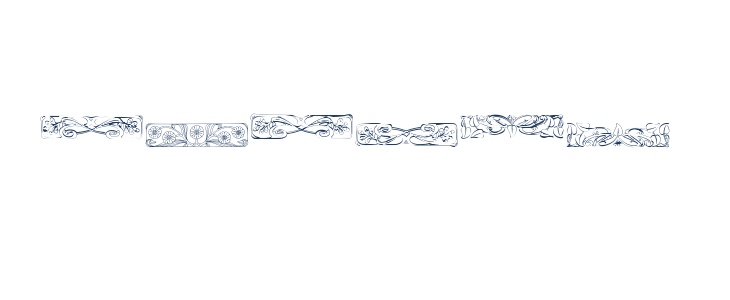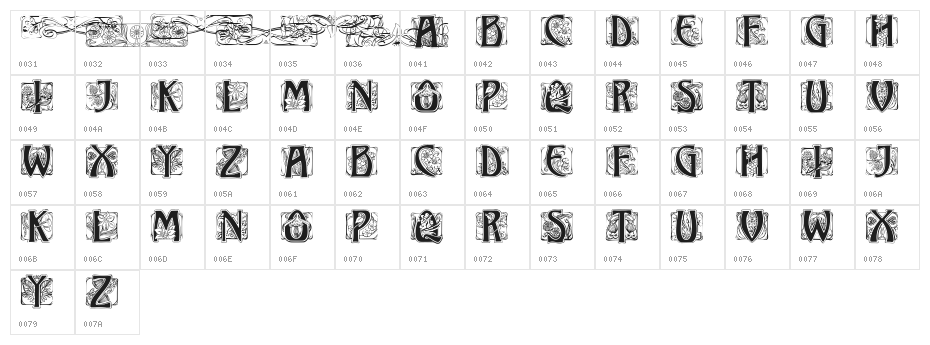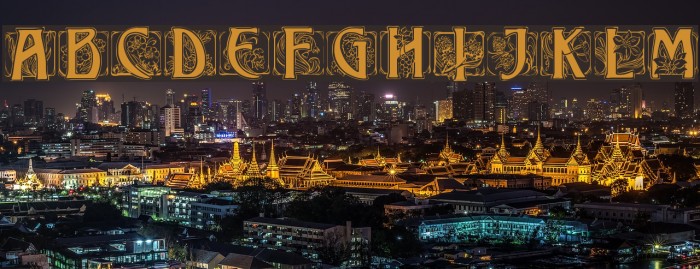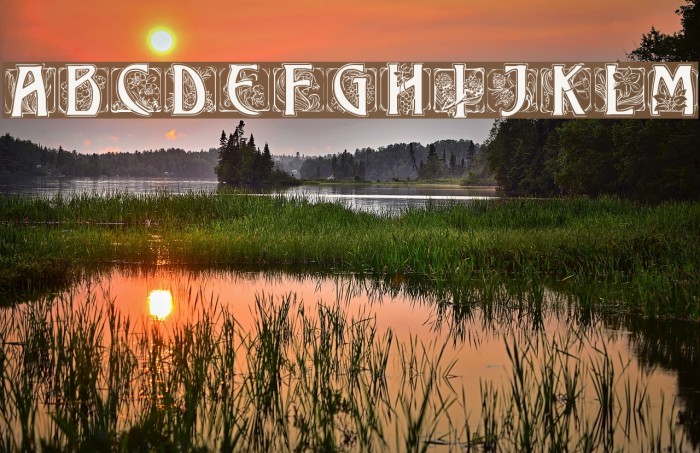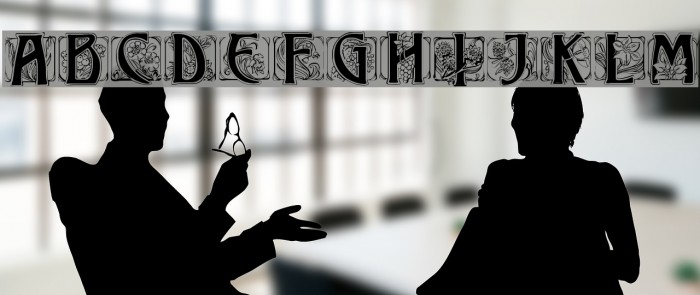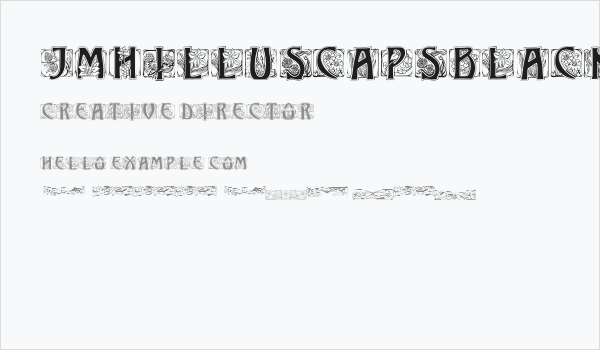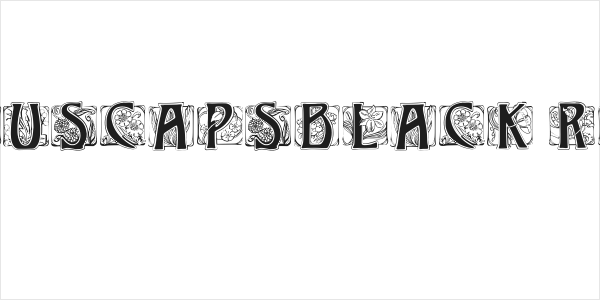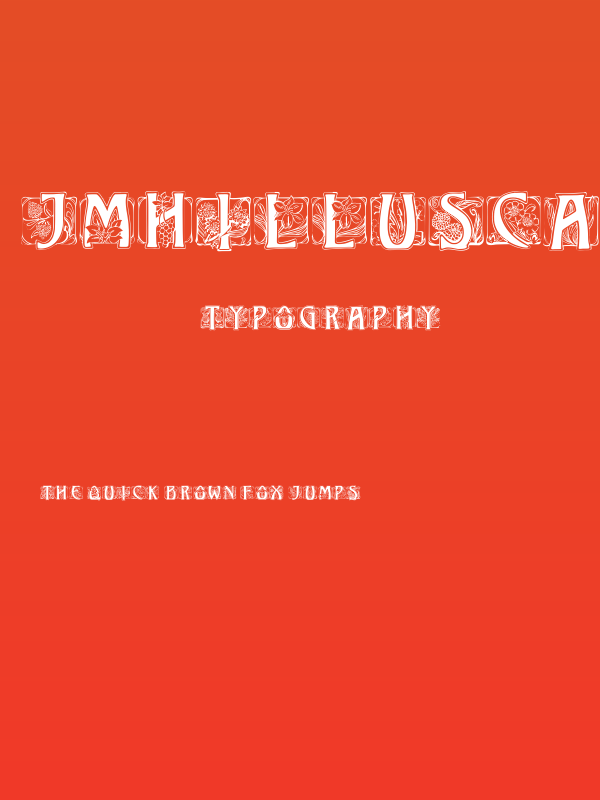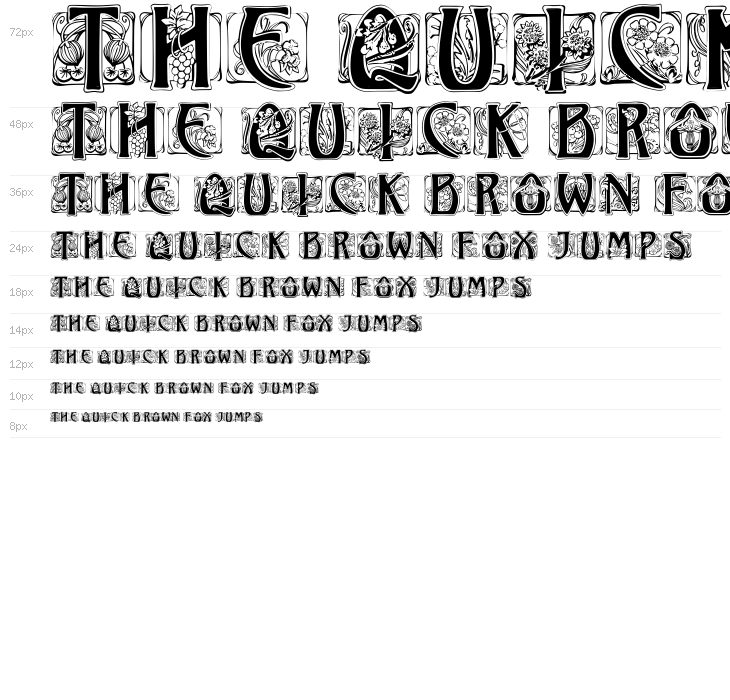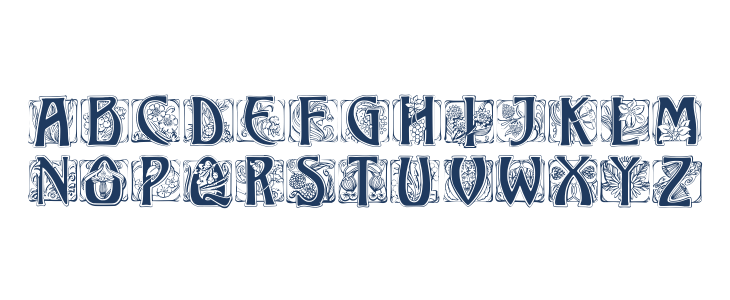
JMHIllusCapsBlack-Regular Font
JMHIllusCapsBlack-Regular Description
This font features an ornate and decorative style, with each letter encapsulated in a detailed, floral-themed box. The intricate designs within the letters give it an artistic and vintage feel, reminiscent of illuminated manuscripts. The uppercase letters are bold and prominent, making them ideal for attention-grabbing headlines or artistic projects. The embellishments add a layer of complexity, making each character a unique piece of art. The font does not include lowercase letters or numbers, focusing solely on uppercase characters and decorative elements.
| Use Case | Headlines, Artistic projects, Decorative elements |
| Proposed Projects | Ideal for vintage-themed designs, artistic posters, book covers, or any project requiring a touch of elegance and intricacy. |